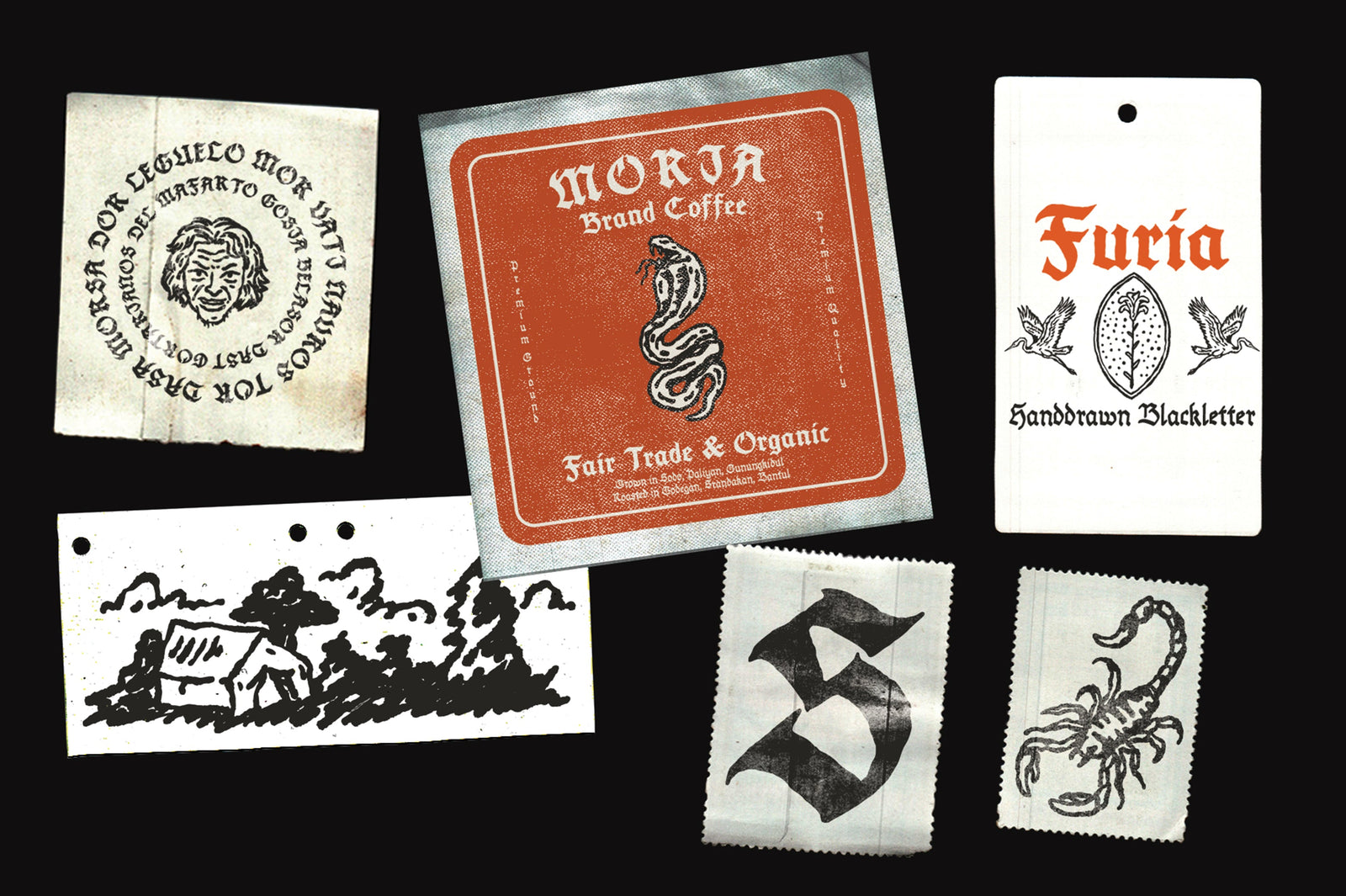
New weirdness landed. A motley crew of chunky fonts, photocopyy effects and shiny chrome drama—perfect for late-night poster panic or that project that needs…
New weirdness landed. A motley crew of chunky fonts, photocopyy effects and shiny chrome drama—perfect for late-night poster panic or that project that needs personality but refuses to behave. Sort of like your mates, but typographic.
Sahir by AROKA TRUE INDEPENDENT STUDIO
Sahir
Looks like a stencil that wrestled with a concrete mixer. Sahir is a rough, grunge display font made for posters and flyers that want attitude. Comes in OTF and TTF formats with full uppercase set and basic punctuation. Expect heavy texture, uneven edges, and a punchy display feel—best for headlines, gig posters, and anything that survives being shouted at.
Grunge Urban Text Effect by Matsero
Grunge Urban Text Effect
This text effect turns plain type into bold, playful grunge with layered grit and colour controls. Delivered as layered PSD with smart objects and editable text styles plus PNG previews. Works on big headlines, posters, album art, and chaotic branding. Tweak blends, drop shadows, and get instantly loud in a single Photoshop file.
FURIA Handrawn Blackletter by AROKA TRUE INDEPENDENT STUDIO
FURIA Handrawn Blackletter
FURIA is a hand-drawn blackletter offering three style variations and a bonus set of 25 hand-drawn icons. Supplied in OTF and TTF, includes alternates and ligatures for wiggle-room with letterforms. Great for tattoos, posters, and ornate headlines that want vintage grit with a doodled, human touch.
AOT Lost Contact – Contemporary Pixel Font by Arena of Type
AOT Lost Contact – Contemporary Pixel Font
AOT Lost Contact is a contemporary pixel font inspired by monospaced typefaces, balancing retro charm with modern readability. Provided as OTF/TTF and usable in monospace layouts, it suits UI mockups, game titles, and neon-retro posters. Crisp pixel edges, consistent spacing, and a compact footprint that reads nicely at small sizes and giant headlines alike.
Chrome Text Effect Pack by Matsero
Chrome Text Effect Pack
This pack bathes letterforms in gothic chrome — reflective metals, glowing highlights, and dramatic fantasy vibes. Delivered as layered PSDs with smart objects, multiple chrome styles, and colour adjustment layers. Ideal for fantasy posters, band logos, and anything needing reflective drama. Toss in textured backgrounds and ornate letterforms for full theatrical effect without building a metal forge.
Mono Copier Text Effect by Pixelbuddha
Mono Copier Text Effect
Mono Copier gives designs deep side faces, slight warping, and a gritty photocopy layer with speckled noise and faded patches. Comes as layered PSD with smart objects and tweakable grain settings. Perfect for zines, underground posters, and any project that wants the imperfect charm of a cheap office copier with actual style.
Bad Print Copier Effect by Pixelbuddha
Bad Print Copier Effect
Bad Print recreates smeared blur, harsh grain, vertical scan lines, dust and scratches for a degraded lo-fi archive feel. Supplied as PSDs with smart objects and adjustable exposure layers. Use it on posters, packaging, and editorial spreads when you need nostalgia that smells like old paper without actually smelling.
Energy Gradients Textures by Pixelbuddha
Energy Gradients Textures
A soft lightwave haze in a pack. Energy Gradients offers airy gradients, fine noise, and printed-edge grain to create atmospheric poster backdrops and dreamy cover art. Files include high-res PNG and layered PSD textures at print-ready sizes. Great for album covers, website headers, and mockups that want a gentle electric hum rather than a migraine-inducing neon scream.
PAWTASTIC™ - Branding Kit by AiahHassn
PAWTASTIC™ - Branding Kit
Paw-obsessed identity kit with a neat, playful personality. This ZIP includes logo files, colour palette, business card templates, social assets, and mockups ready for customization—likely AI, EPS, PSD, and PNG formats inside. Built for pet brands, quirky start-ups, or anyone who wants stamped-with-paw charm. Use as-is or rip bits for stickers, labels, and wholesome chaos.
BaseHead – Bold Retro Display font by Typeparties
BaseHead – Bold Retro Display font
Chunky, vintage, and built to dominate. BaseHead is a bold retro display font with chunky organic letterforms and slightly irregular contours that feel hand-carved. Delivered in OTF and TTF with full uppercase set, punctuation, and stylistic alternates. Perfect for headlines, posters, and packaging that want a nostalgic push without sounding like a museum exhibit.